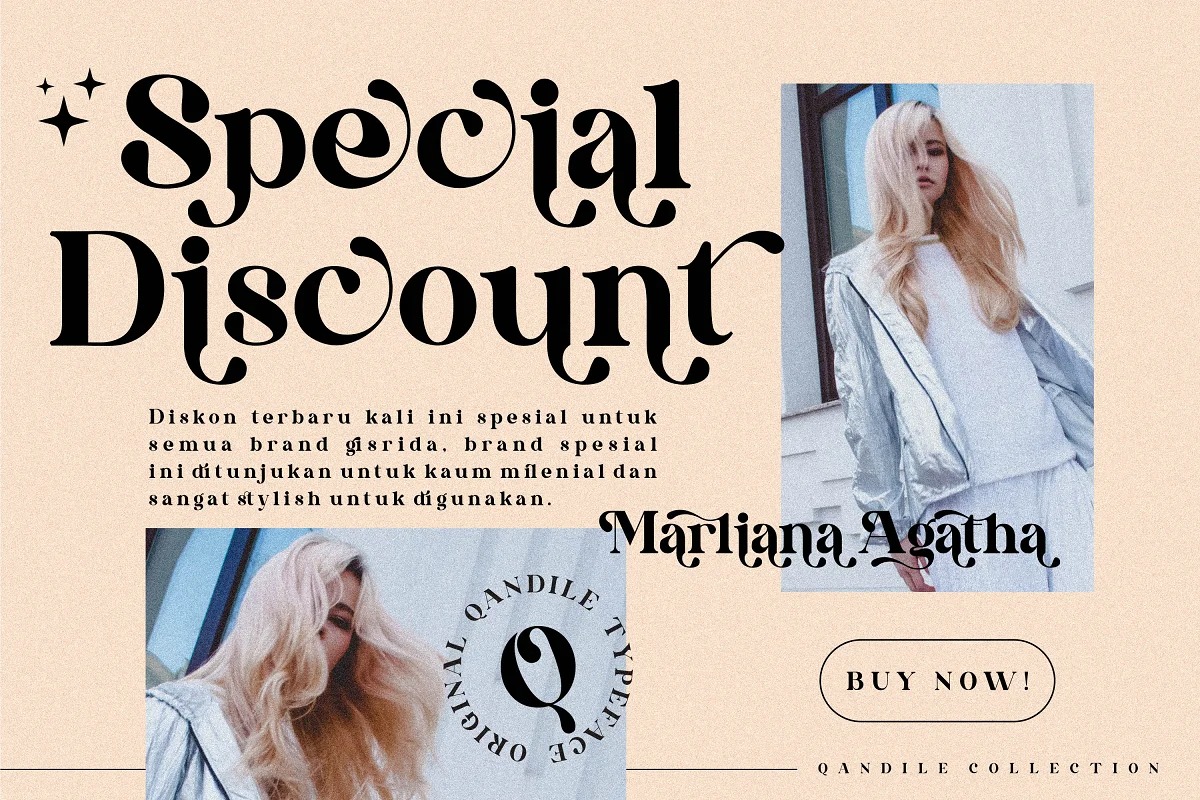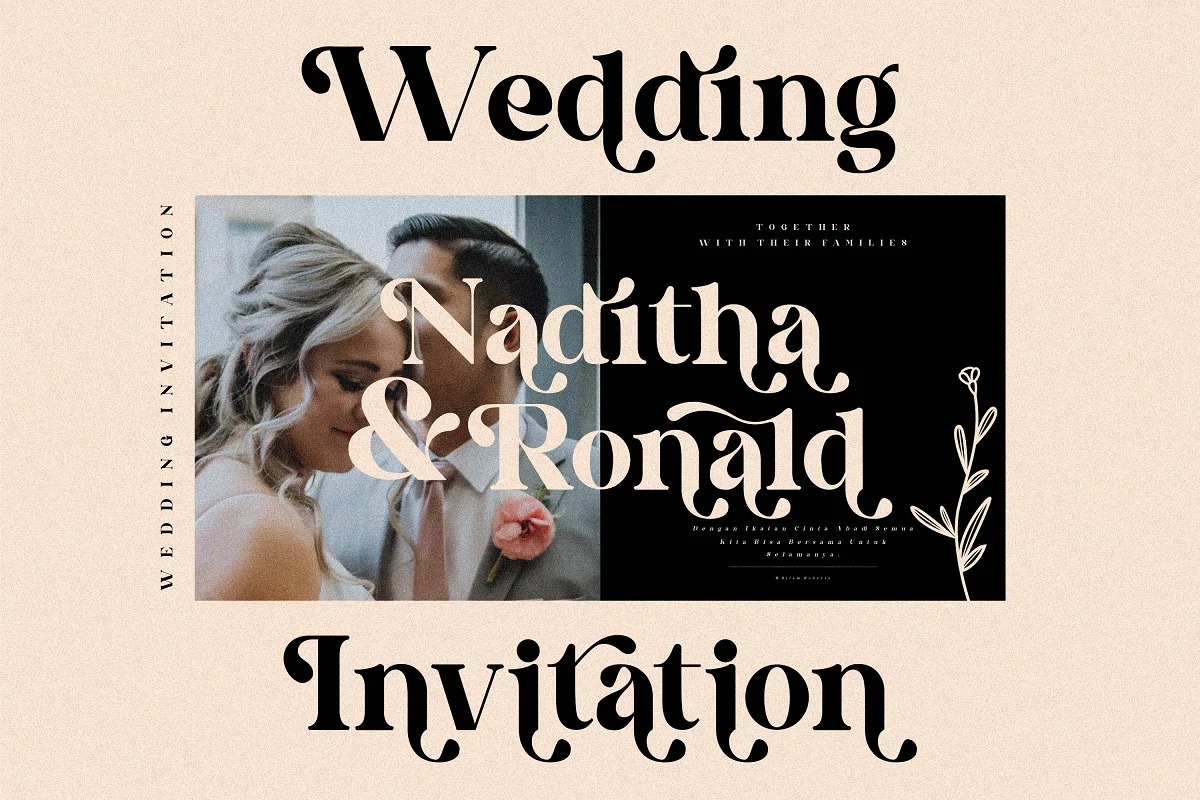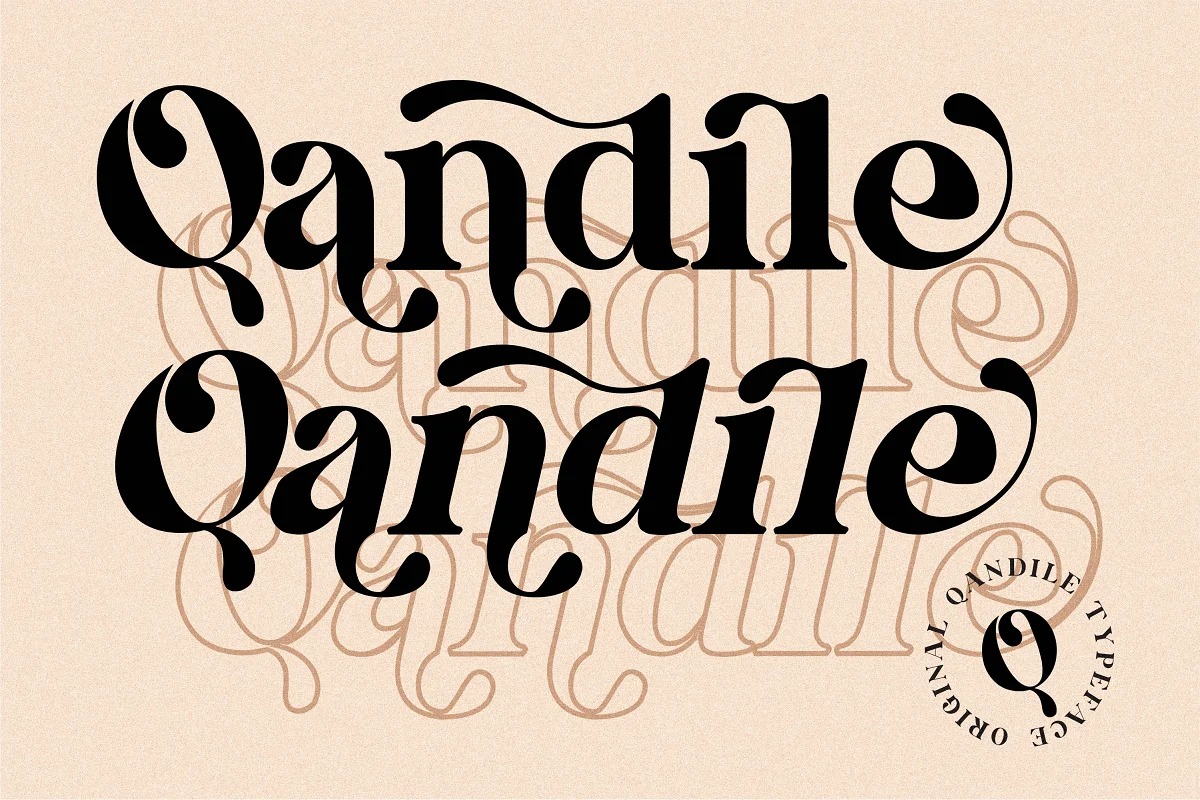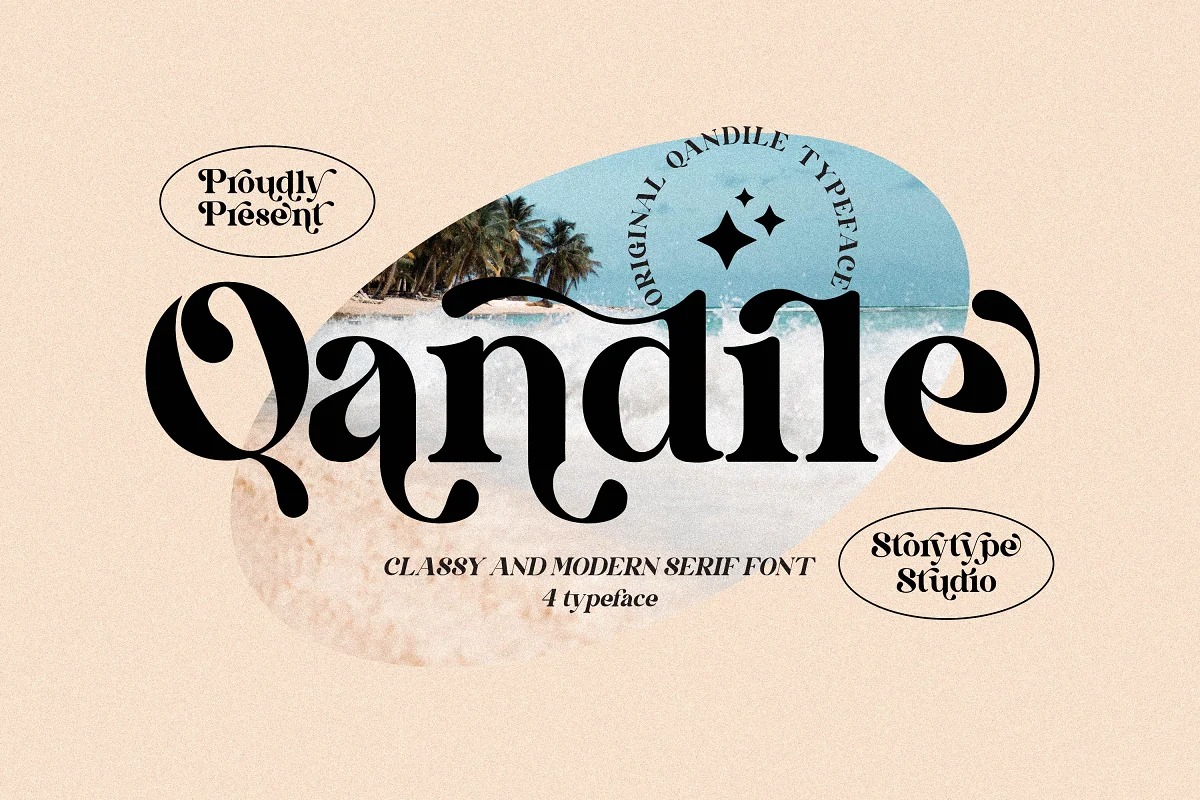
Qandile Serif Font
This font is a serif look with simple, clean and visual elegance with smooth curves and beautiful ligatures, A very versatile font that works in both large and small sizes. Qandile is perfect for an elegant & luxury logo, book or movie title design, fashion brand, magazine, clothes, lettering, quotes, and so much more.